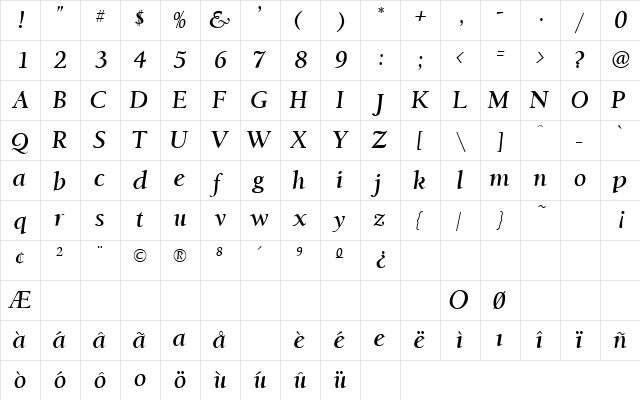
OstentiaSSK Regular
Design Context for OstentiaSSK Typeface
OstentiaSSK takes a measured approach to typography — its balanced proportions and neutral character make it a reliable workhorse for both digital and print work.